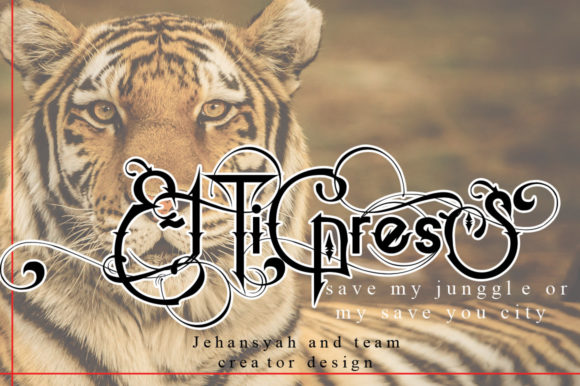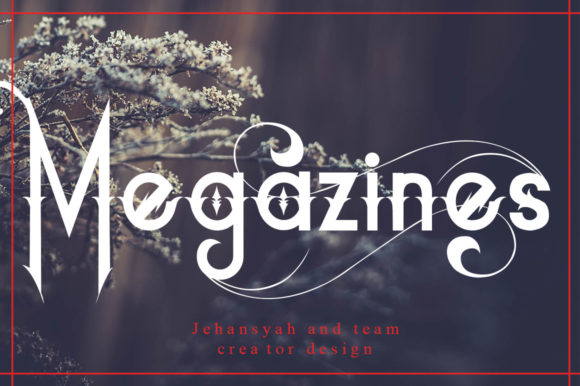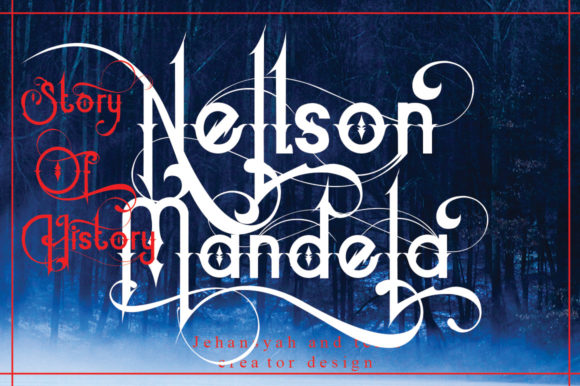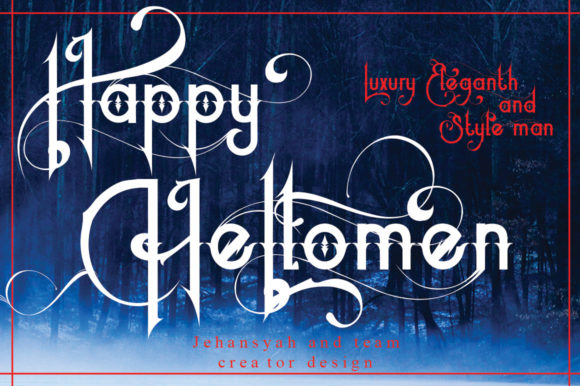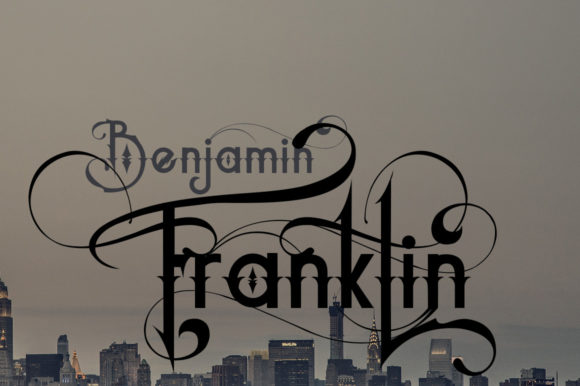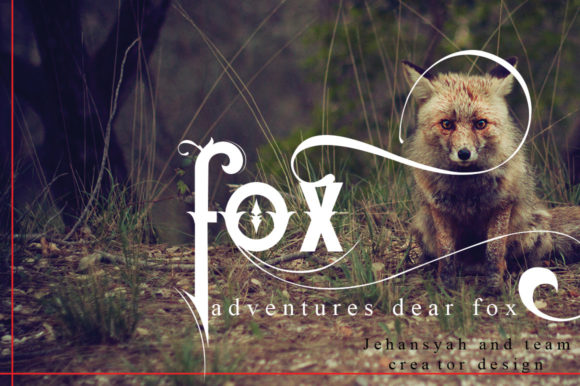
Introduction to Simposiuf Font
Have you ever been in the middle of a creative project, staring at a blank page or screen, searching for the perfect font to bring your idea to life? That’s exactly where I was when I stumbled upon the Simposiuf Font. Its unique blend of elegance and edginess caught my attention, and I knew I had to dive deeper.
As designers, we’re constantly on the lookout for high-quality design resources that can elevate our work and make it stand out. The Simposiuf Font is one such resource that’s sure to impress. With its striking letters and swashes, it’s perfect for creating big, bold designs that demand attention. Plus, it’s available for free download, making it an excellent addition to any designer’s toolkit.
Key Features of Simposiuf Font
- High-quality design resource suitable for creative projects, available for free download.
- Designed with a unique aesthetic, making it perfect for adding a touch of elegance to your design projects.
Honest Review: Simposiuf Font
As a designer, I’m always on the lookout for unique and high-quality design resources to elevate my creative projects. The Simposiuf Font caught my attention with its quirky and playful aesthetic.
- ✨ Unique and creative design that’s perfect for adding a touch of personality to your project
- ✨ High-quality font files that are crisp and clear, even when used on a transparent background
- ⚠️ Limited character set, which may not be ideal for projects requiring extensive text
- ⚠️ May not be suitable for formal or professional projects due to its playful nature
Overall, the Simposiuf Font is a fantastic design resource for designers looking to add a touch of whimsy to their creative projects. While it may have some limitations, its unique design and high-quality files make it a worthwhile addition to any designer’s toolkit.
Tips for Getting the Most Out of Simposiuf Font
Use the Simposiuf Font in conjunction with other high-quality design resources to create a cohesive and visually appealing design. Experiment with different font sizes, colors, and styles to find the perfect combination for your creative project.
The Simposiuf Font is ideal for designing creative projects such as logos, brochures, and social media graphics. It’s also great for adding a touch of elegance to presentations and reports.
Compared to Simposiuf Font, Alex Brush Font offers a more refined and polished look, making it suitable for a wide range of applications, from branding to editorial design.